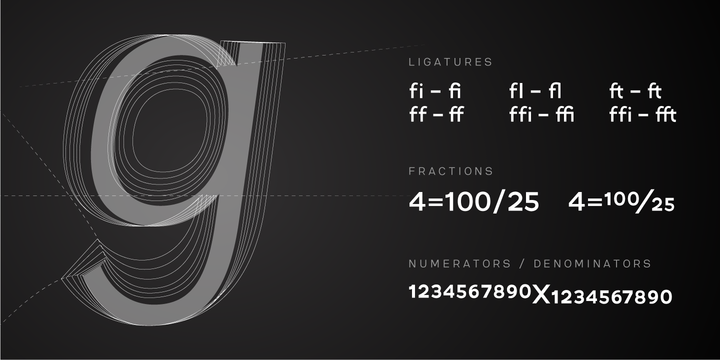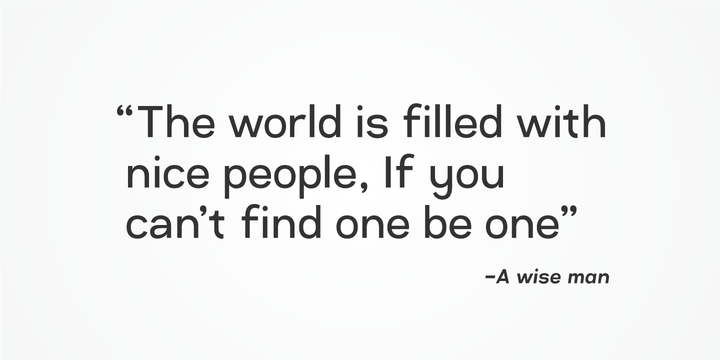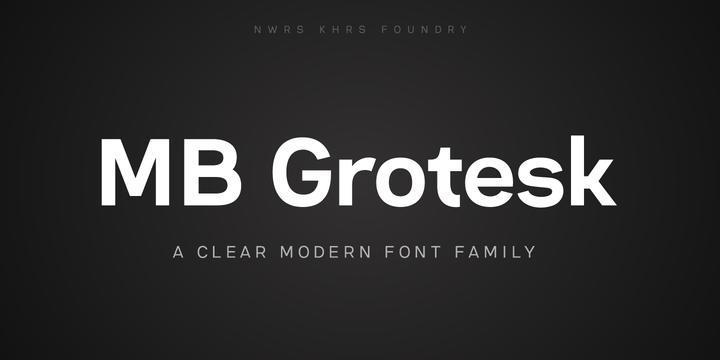
While uniqueness might be considered the main goal among type designers, our goal in this project was to be as far away from that uniqueness as possible.
We designed MB Grotesk with strictest typography standards, holding fast to the type axioms long understood from the beginning of modern typography.
After more than 600 hours of work creation, production & release the whole typeface family the MB Grotesk is a flawless branching away from the original Grotesque category.
Included are 351 standard glyphs designed with geometric rules and grotesque type theories.
More MB Grotesk has 7 weights & their italics. It supports many languages including most languages which use both Latin and Cyrillic alphabets.
We are looking toward extending this family to include condensed, extended & Arabic versions as soon as possible.